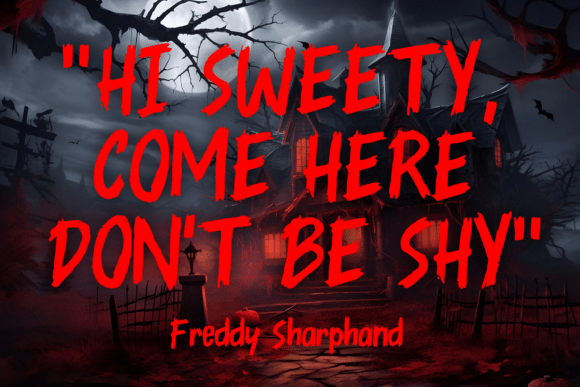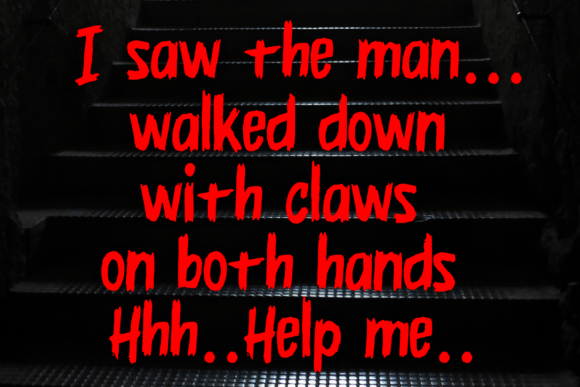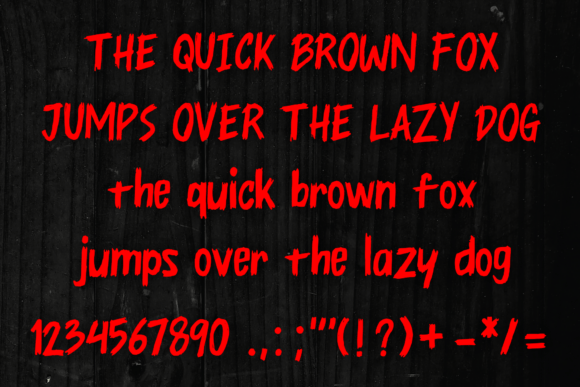
Introduction to Halloween Breakfast Font
Halloween Breakfast is a cool horror font inspired by vintage horror movies, horror comics, and Metal music.
It will be perfect for your horror and Halloween themed needs You can use it for anything ranging from merchandise like t-shirts and clothing, for your scary book designs, Halloween party needs, greeting cards, stickers, posters, banners, or anything that needs a horror touch.